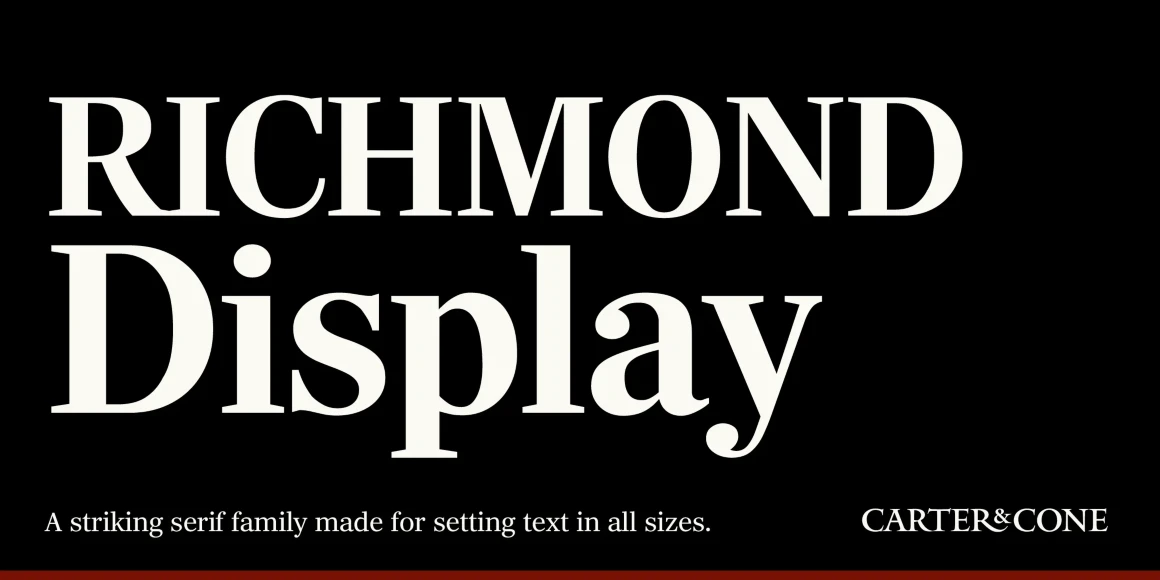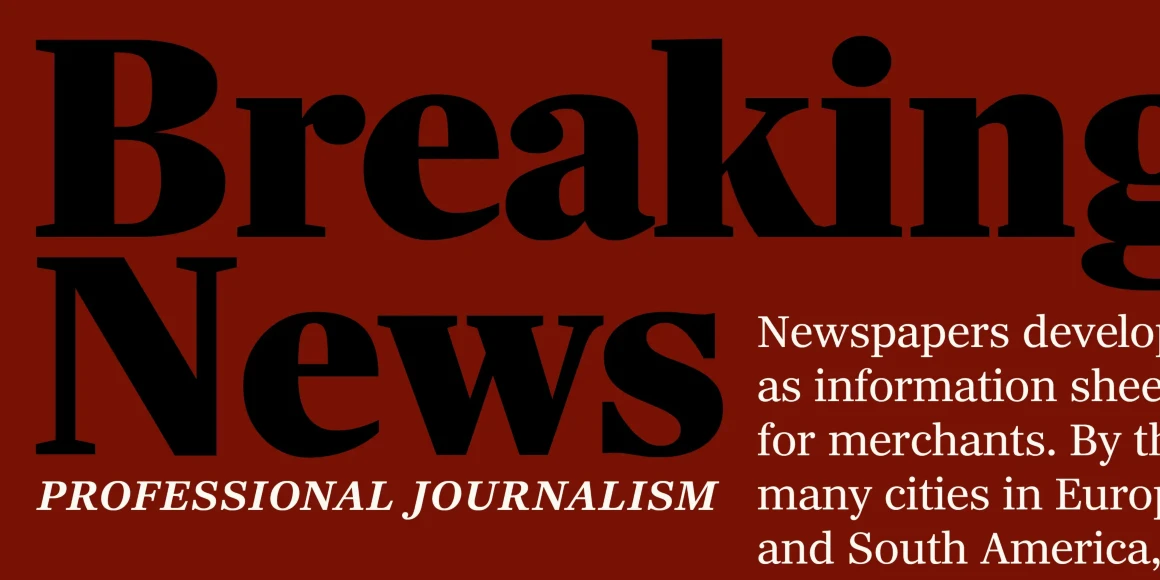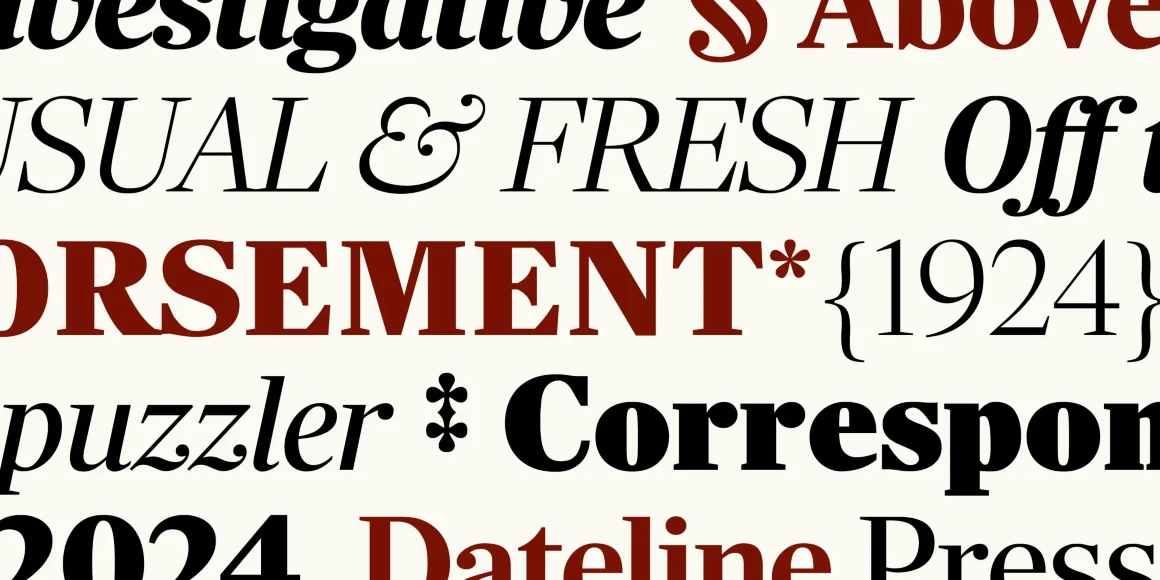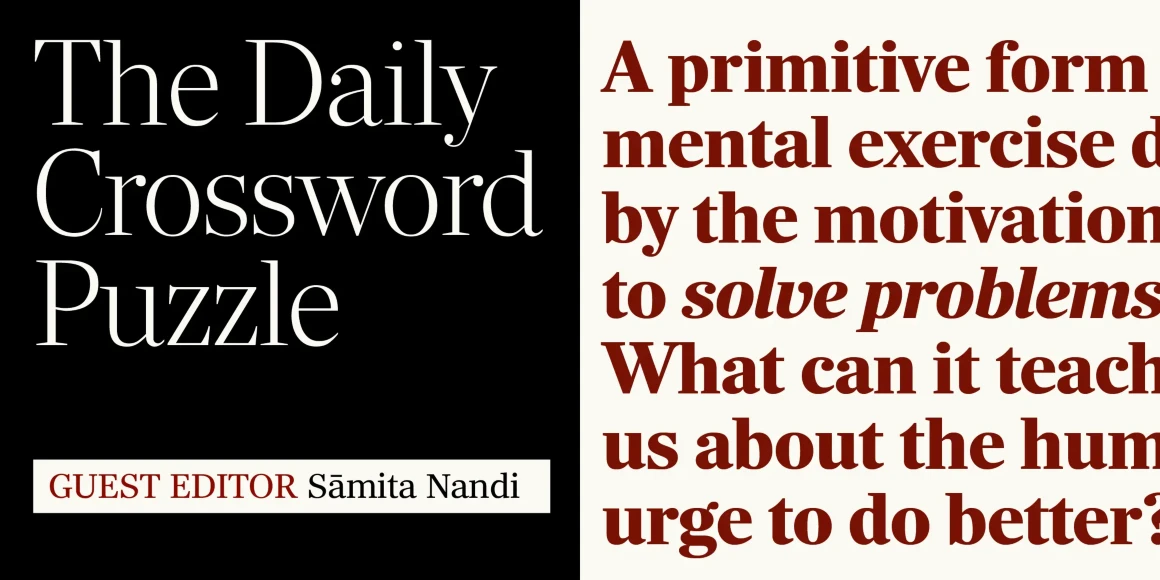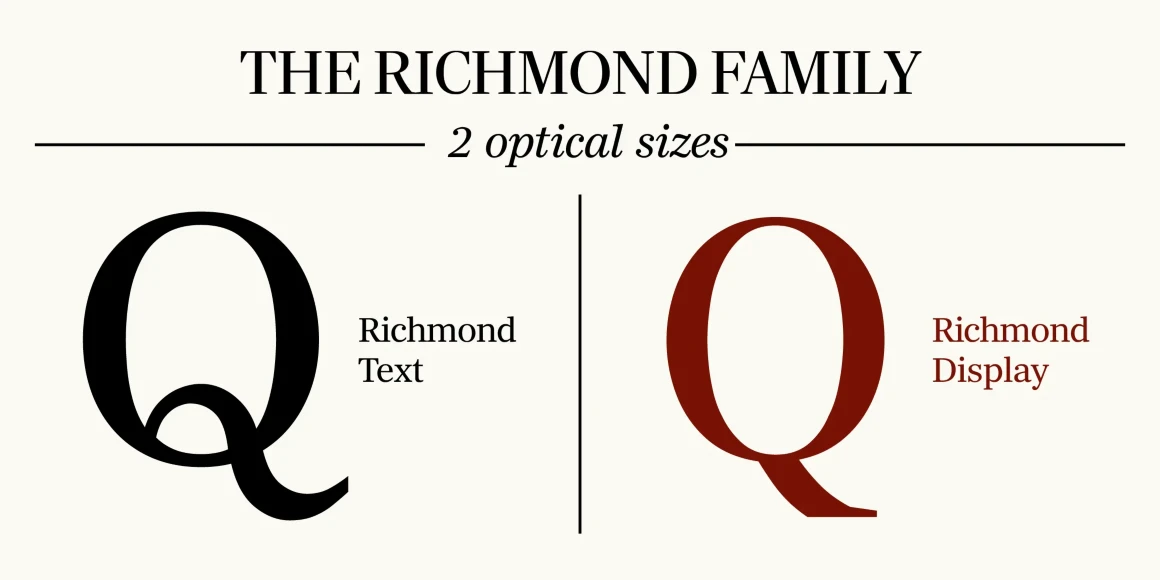
Richmond Display
From Carter & Cone
Matthew Carter’s Richmond CC is a striking serif family made for setting text in all sizes. Initially commissioned for a major daily British newspaper redesign, it has been expanded into a complete family with contributions from Jill Pichotta and Richard Lipton of The Type Founders. The crisp quality of the sharp serifs and large x-height are perfect for invigorating typography. Richmond is available in Display and Text, matching Italics, and four variable fonts, offering endless possibilities.
Designed by Matthew Carter